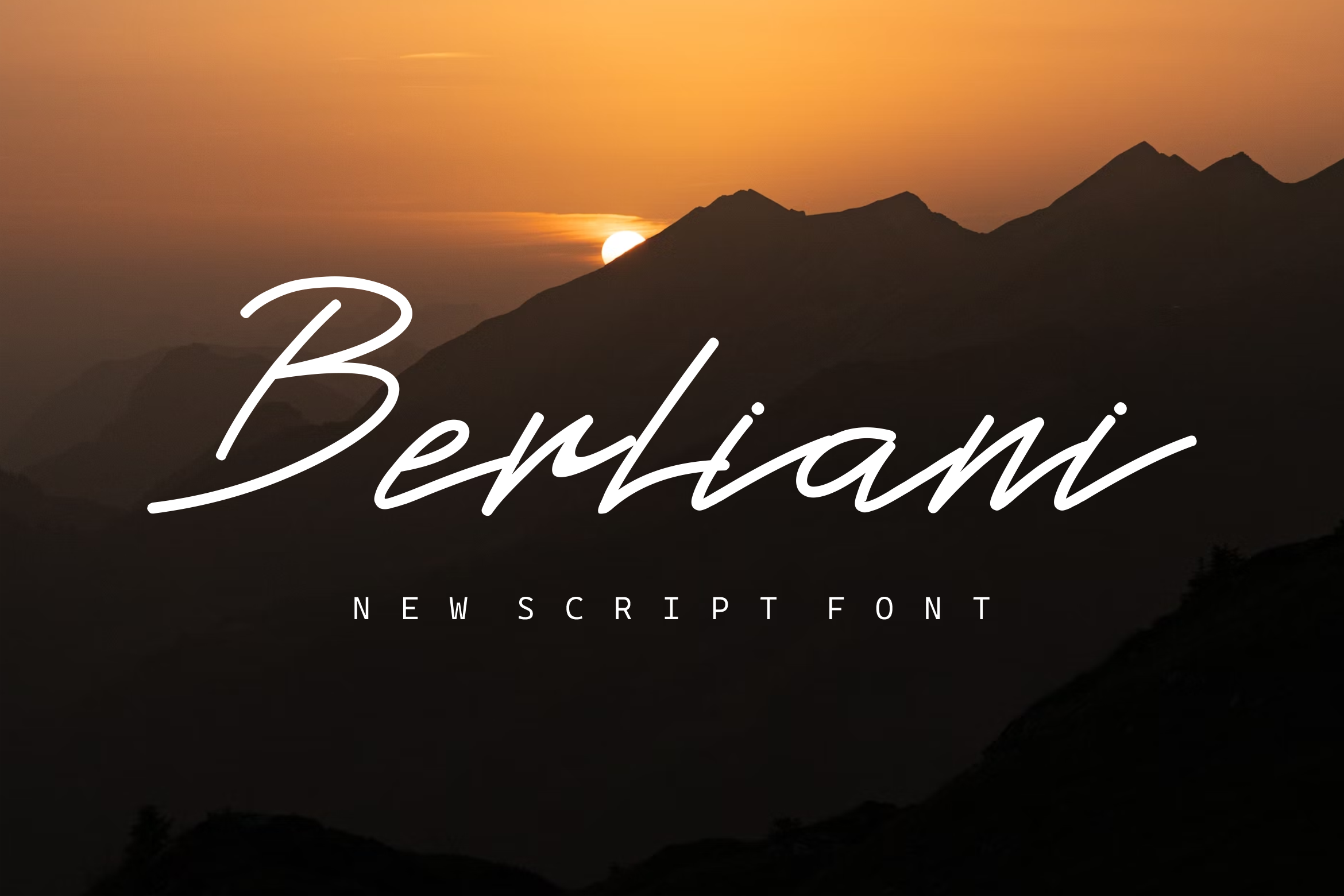
Berliani New Script Font
Berliani New Script Font – Handwriting Script Font is a Cute Handwriting typeface, perfectly suitable for creating quotes, Wedding Invitations, lifestyle designs such as logos, title, magazine, and more.